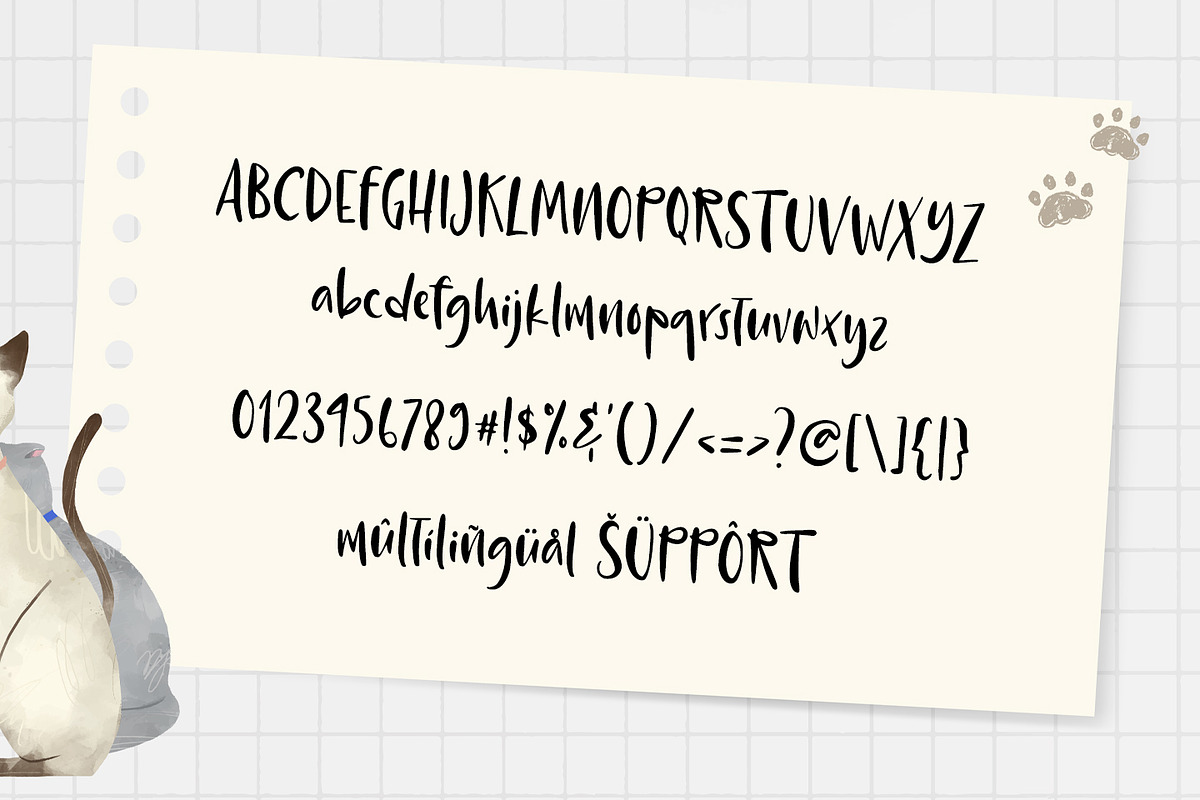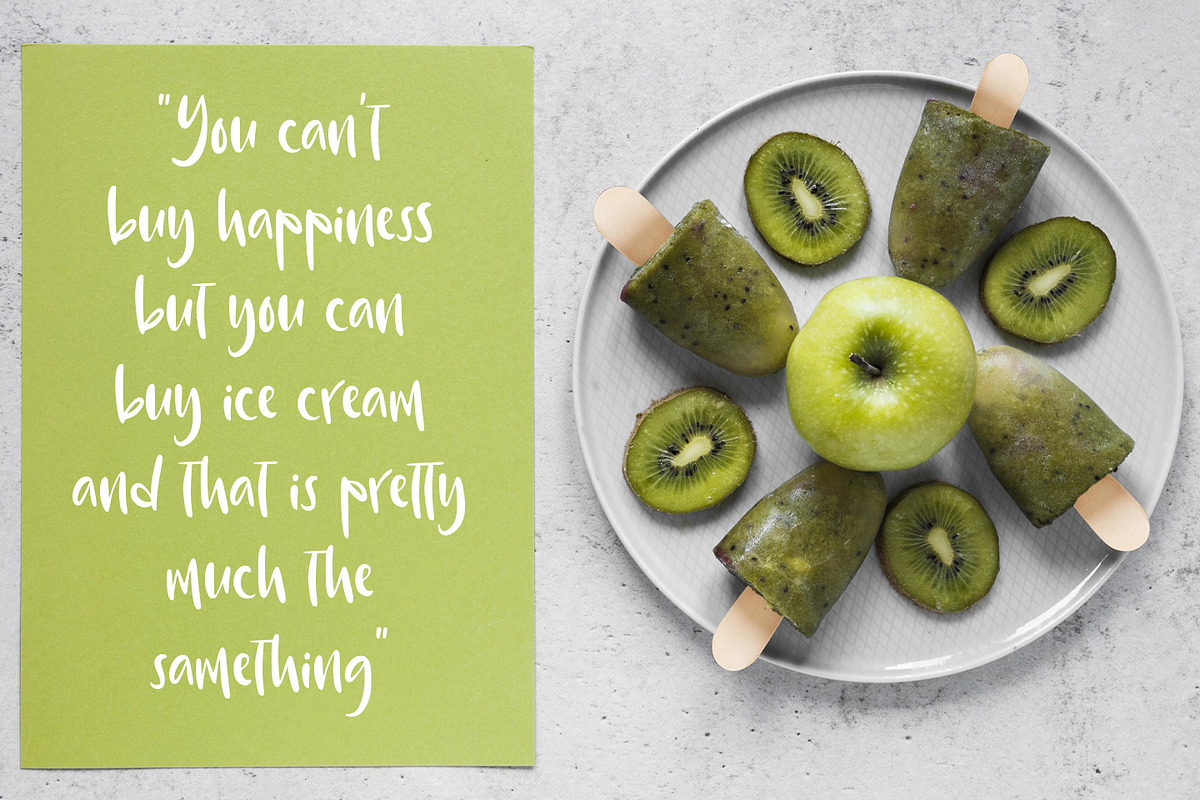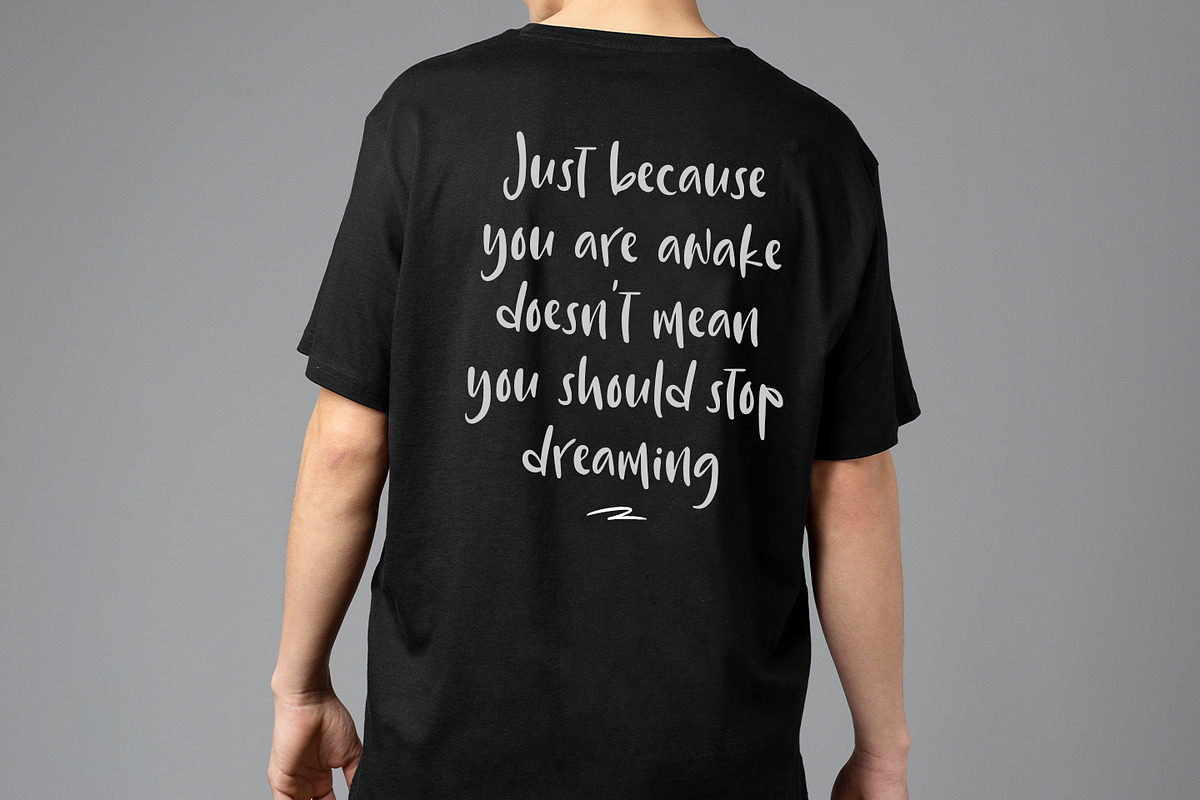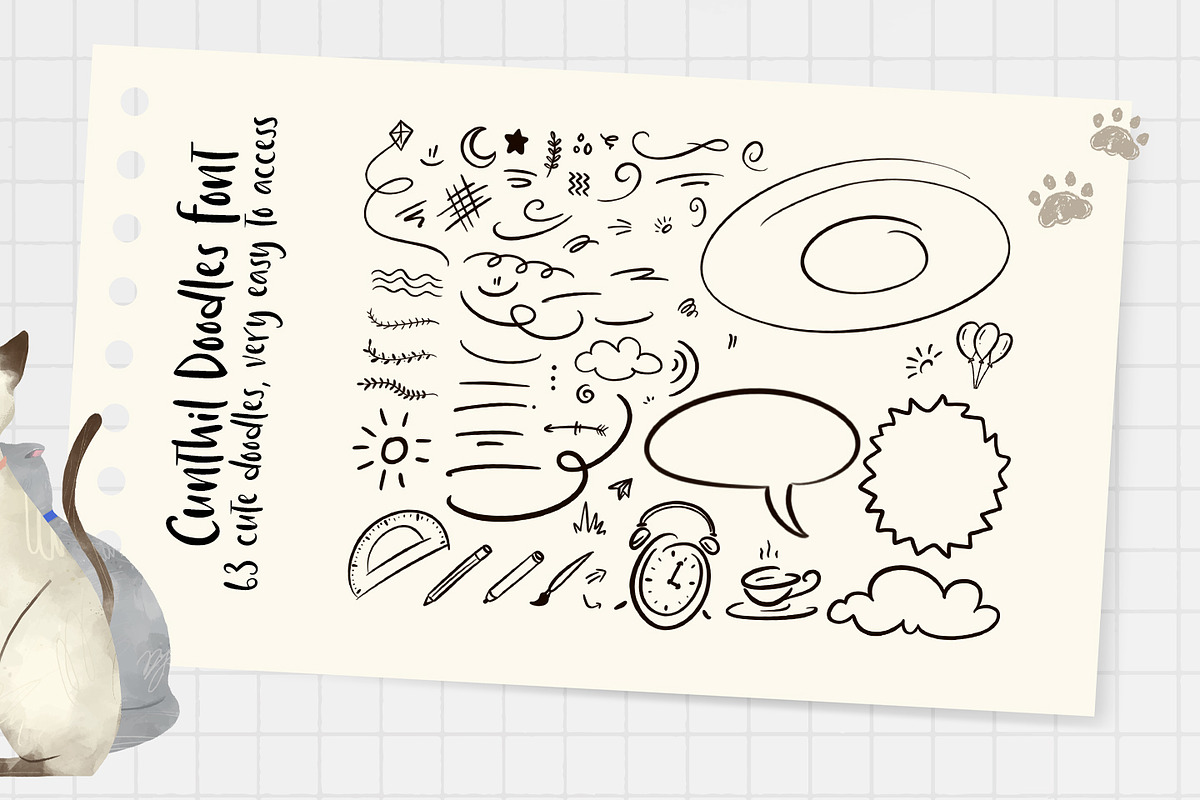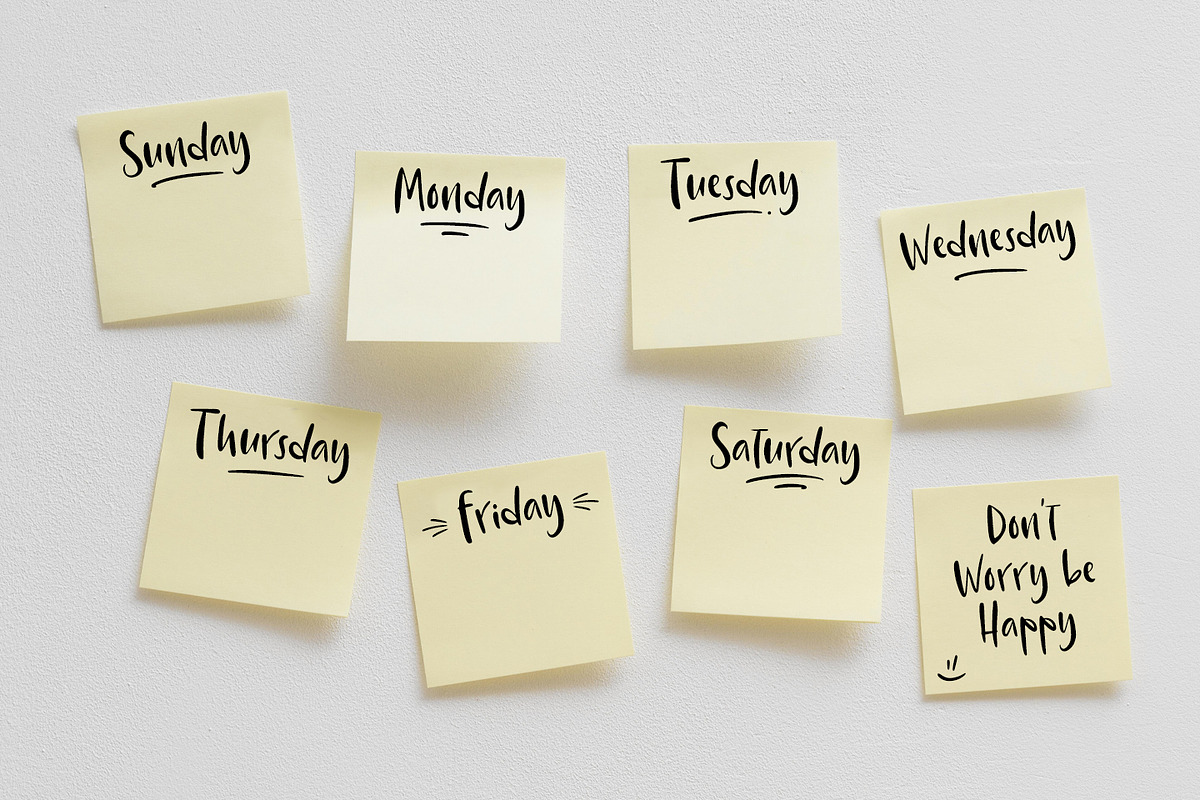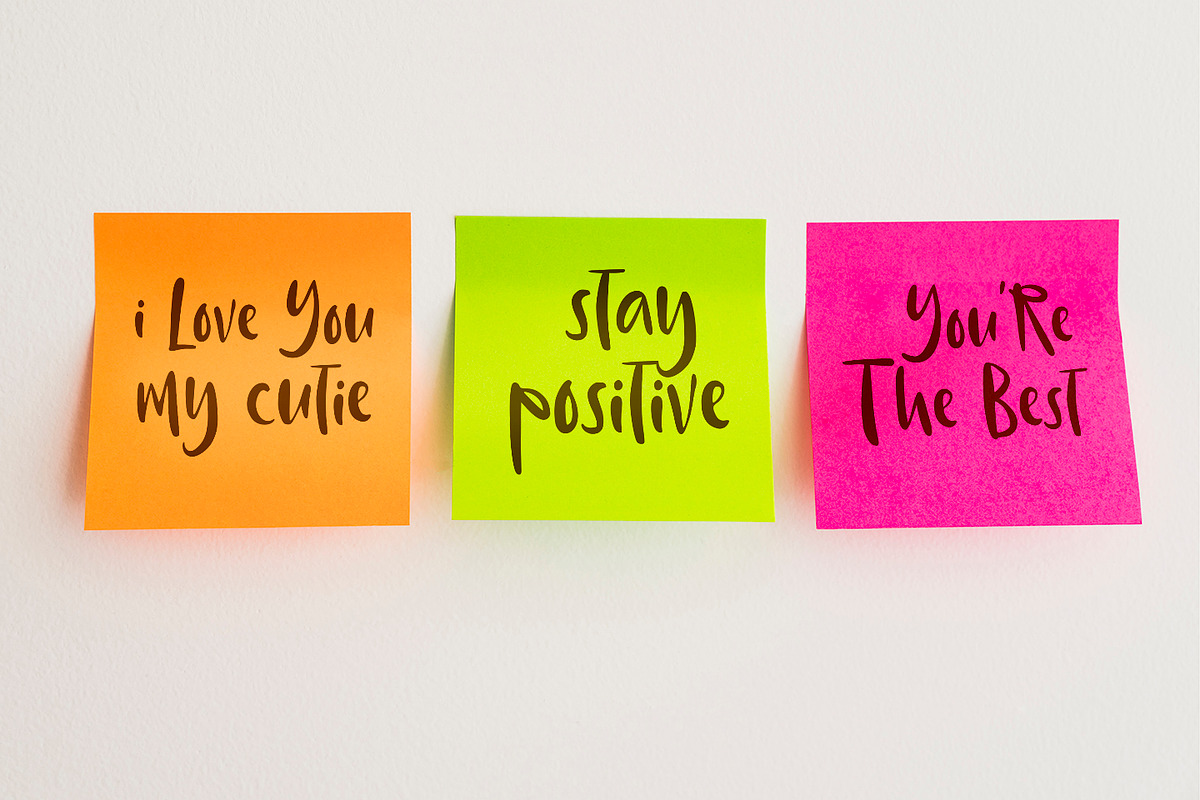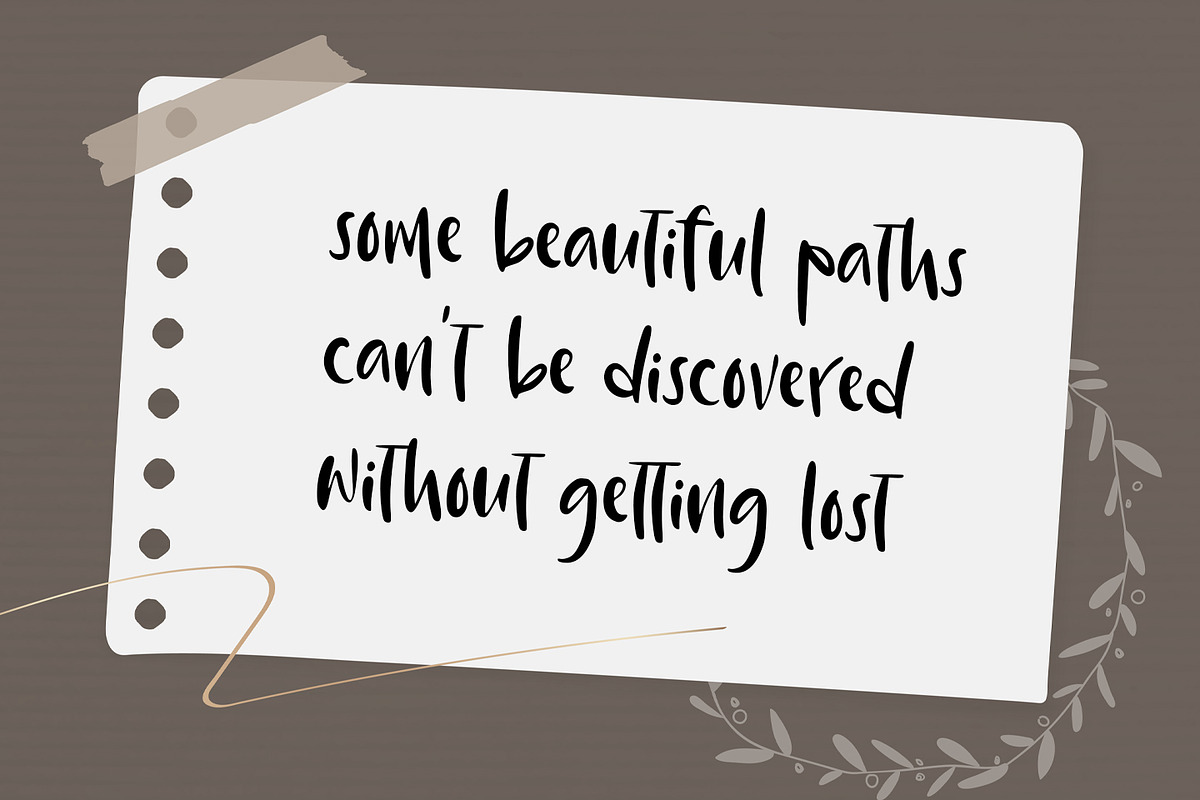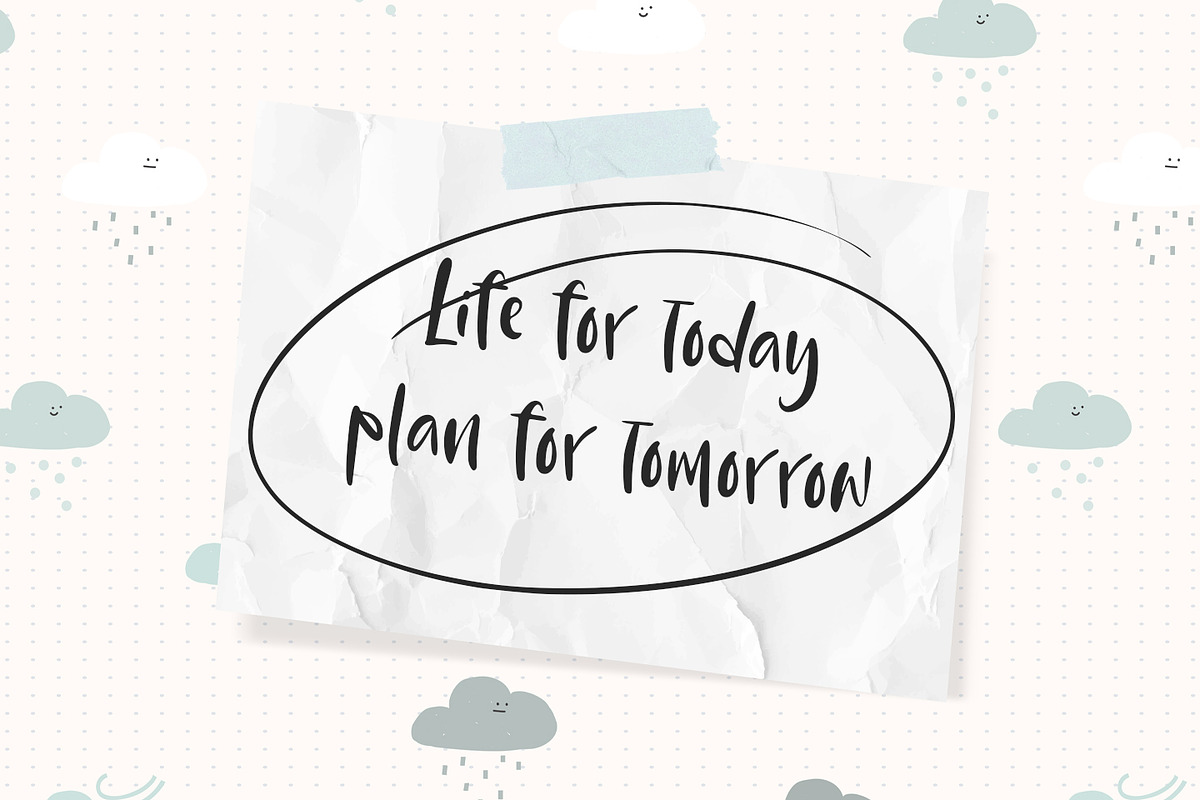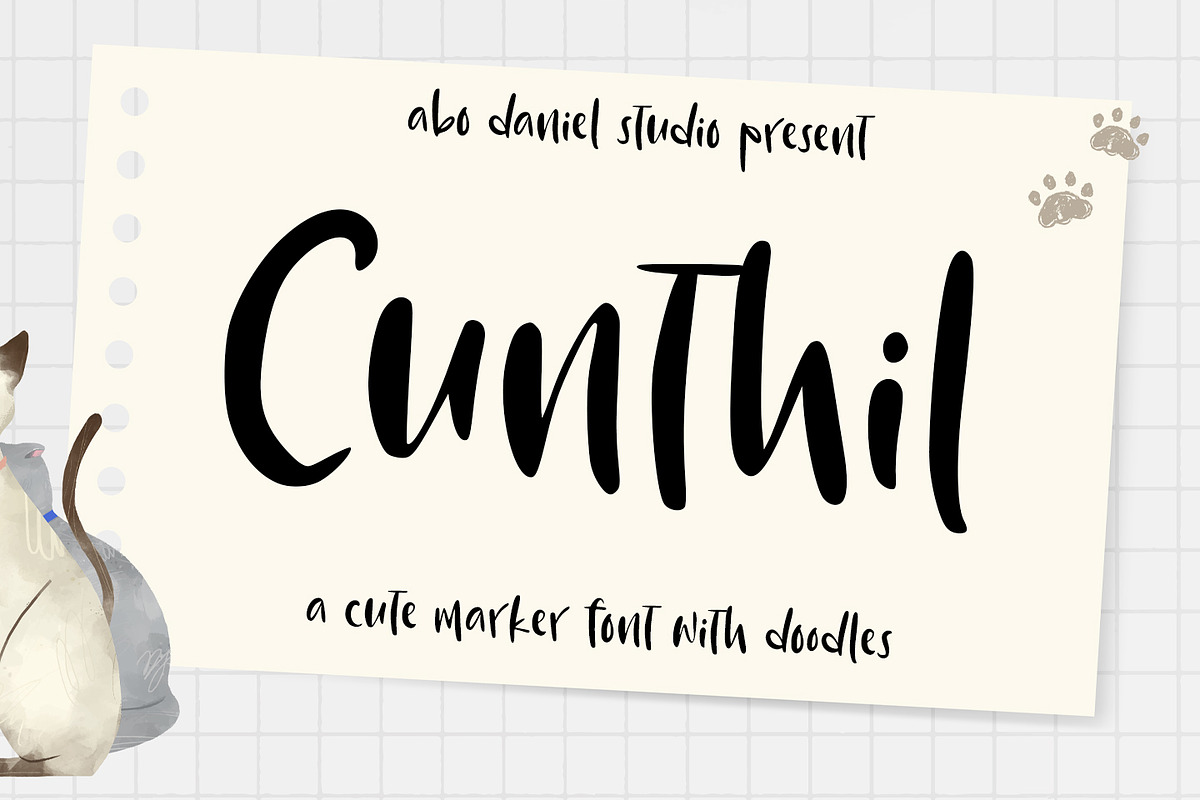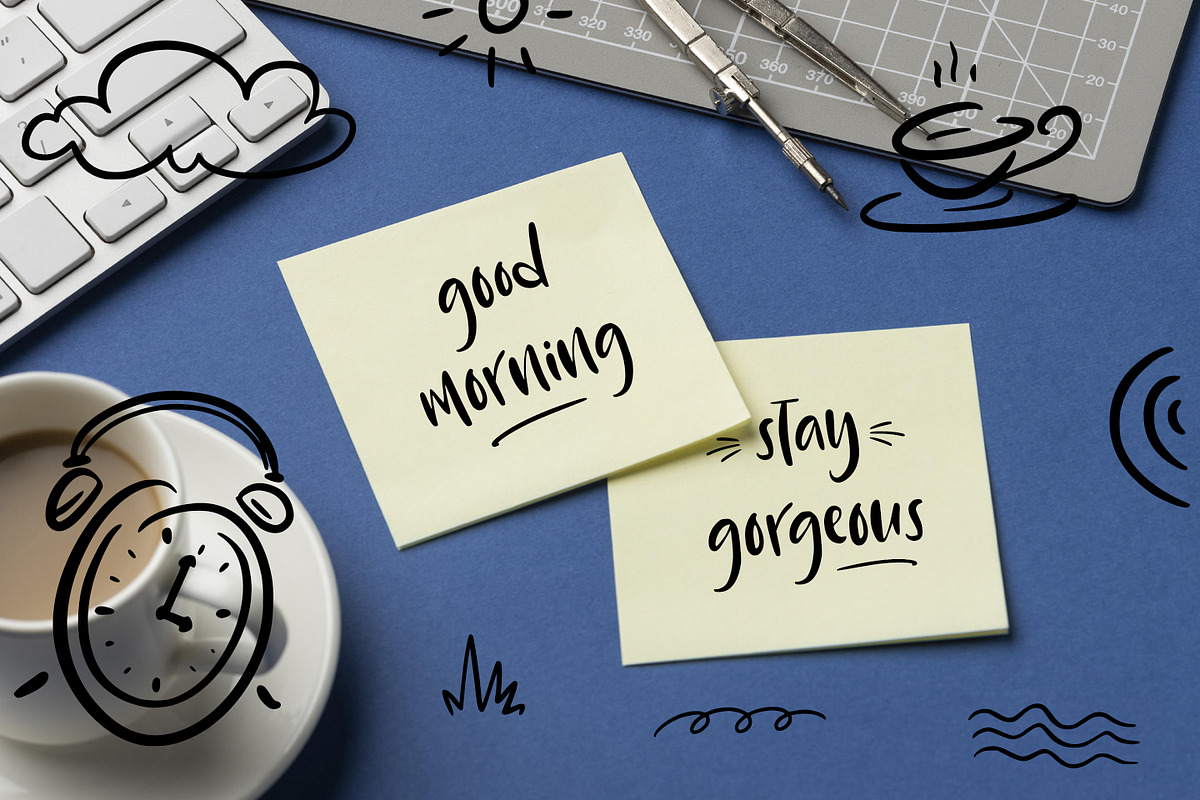
Cunthil
introducing
CUNTHIL (catchy cuteness font)
CUNTHIL is a natural handwritten font.
It is great for notes, quotes, cards, banners, books, cutting, silhouettes, social media content, and anything about craft projects.
The doodles make this font so perfect.
Lowercase
Number & punctuations
Doodles